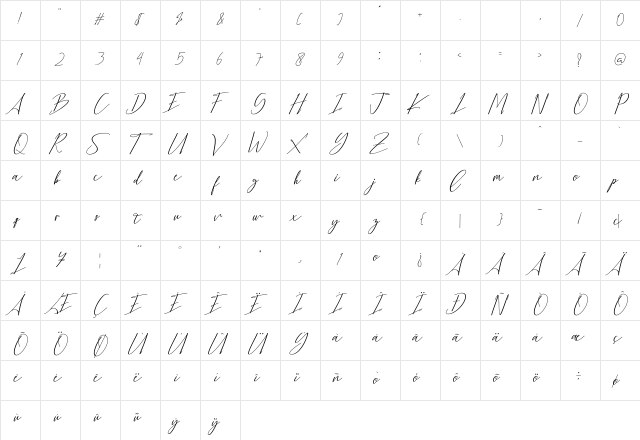
Bethany Script Regular
Design Context for Bethany Script Typeface
Bethany Script flows with the natural rhythm of handwritten lettering, making it ideal for designs that call for warmth and personal expression.
Font Pairing: Combine Bethany Script with a simple geometric sans for maximum contrast — the tension between flowing curves and clean structure is a classic typographic pairing.
Pro Tip: Use Bethany Script for short runs of text — names, titles, or taglines. Extended body copy in script faces tires the eye quickly.